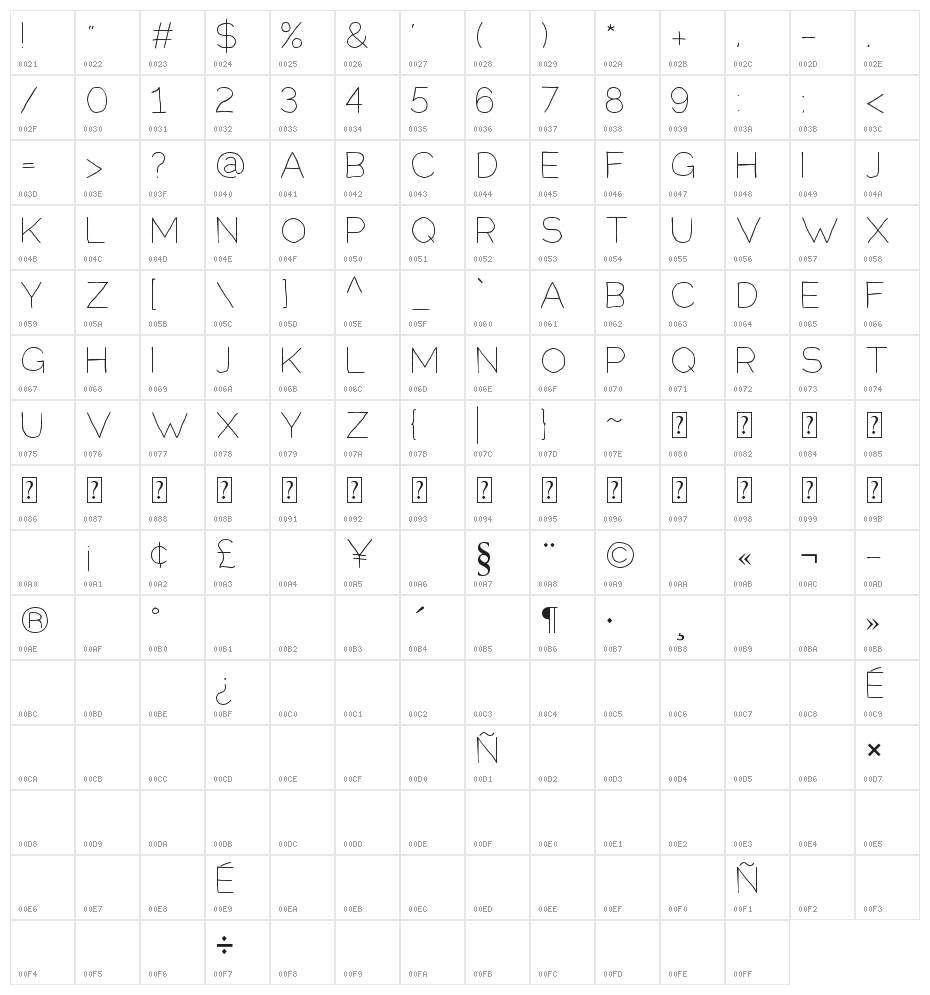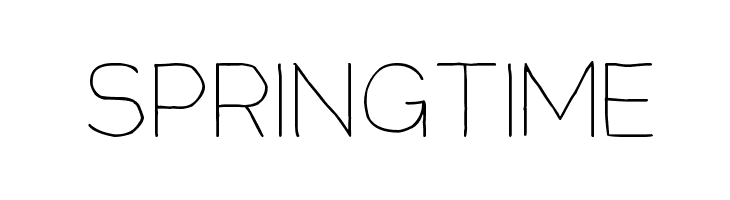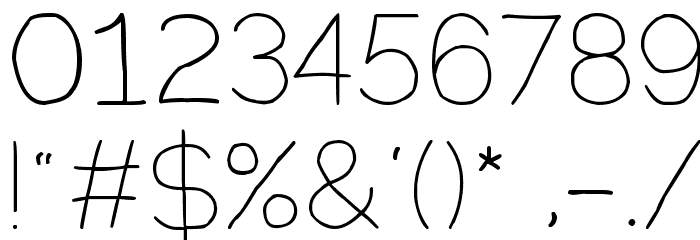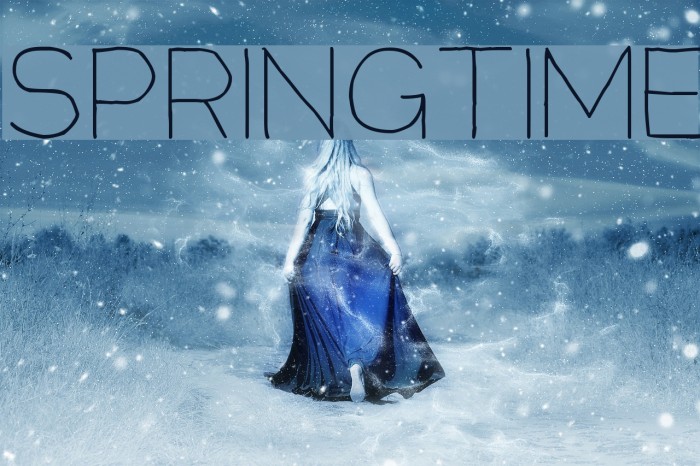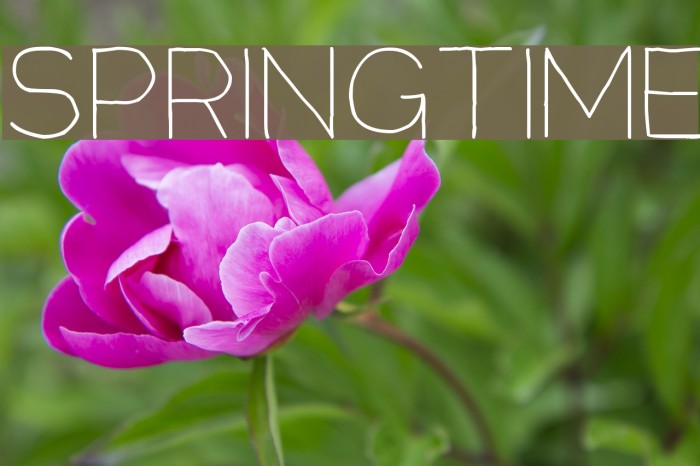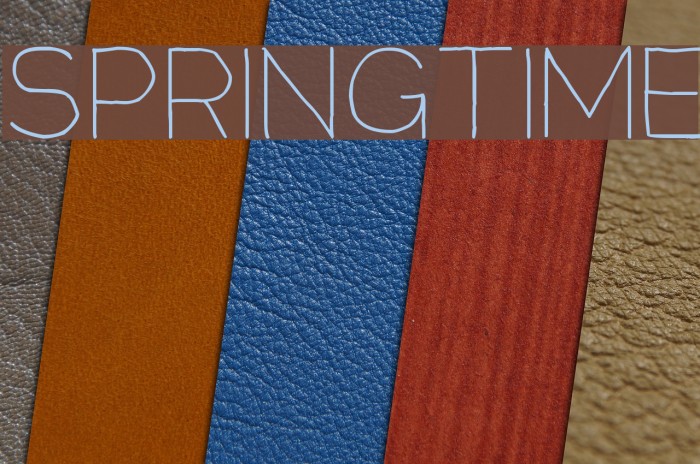
Springtime Font
Springtime Description
This font features a playful and whimsical design, characterized by its thin, hand-drawn strokes that give it a casual and friendly appearance. The letters are slightly irregular, adding to the hand-crafted feel, while maintaining readability. The uppercase and lowercase letters are consistent in style, with a uniform height that creates a harmonious look. The numerals and special characters follow the same design principles, ensuring a cohesive appearance across all text. This font's unique style makes it suitable for projects that require a personal touch or a creative flair.
| Overall Style | Casual |
| Use Case | Headlines, Logos, Invitations |
| Proposed Projects | Ideal for greeting cards, children's books, creative branding, and casual invitations. |